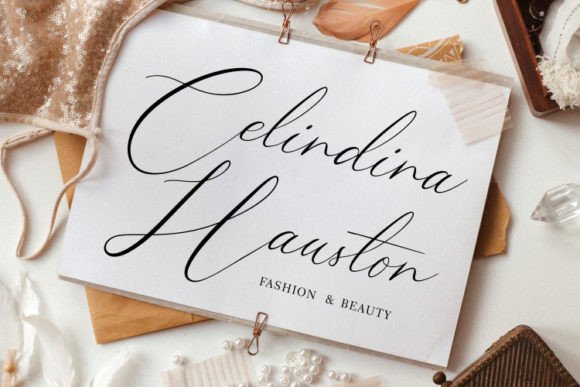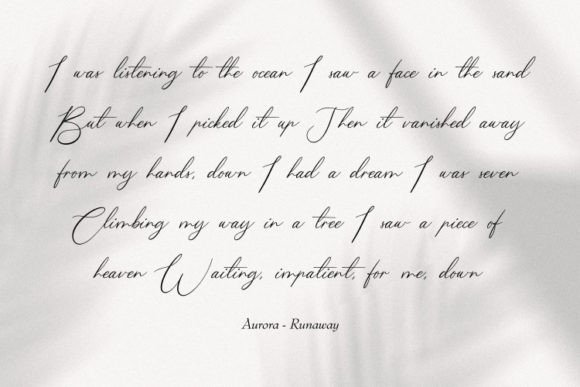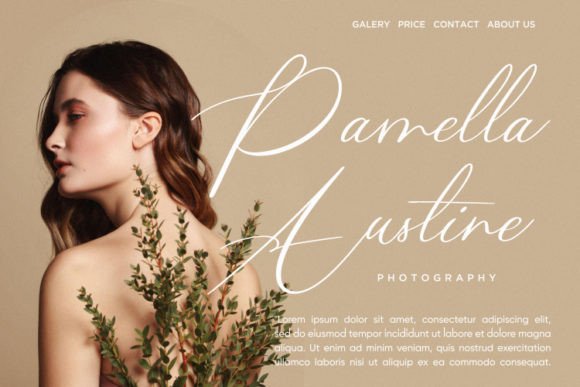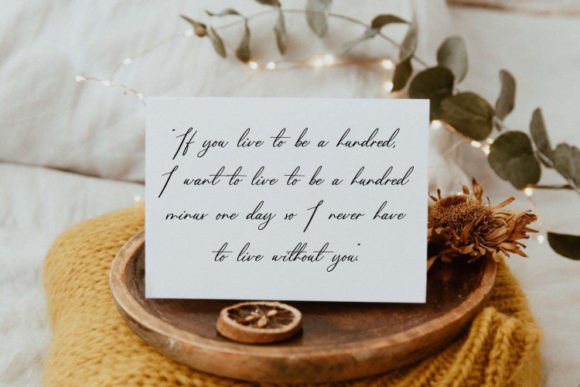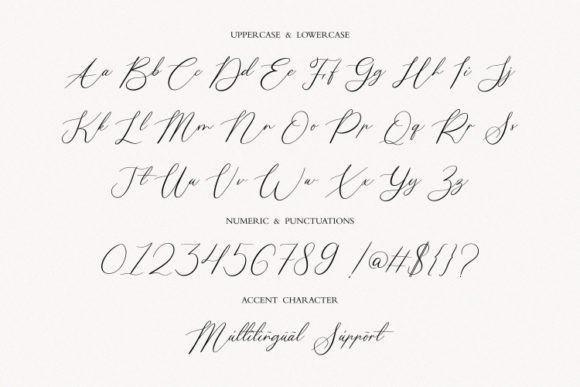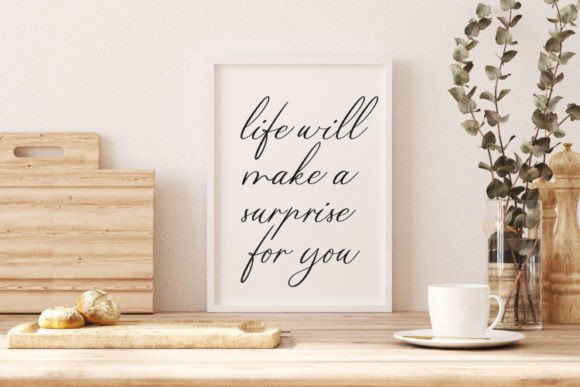
The Magic of Calligrapher Font: Elevating Your Designs with Elegance
I’ll never forget the time I was working on a wedding invitation project, and my client asked for a font that would make the ceremony feel like a fairytale. I scoured the internet, tried countless fonts, but nothing seemed to fit the bill. That was until I stumbled upon Calligrapher Font. With its elegant strokes and whimsical flair, it turned the entire design around, making it feel like a true piece of art. In this article, I’ll share my love for this magical script font and provide you with a comprehensive guide on how to make the most of it.
The Good ✨
• ✅ Elegant and sophisticated: Calligrapher Font is perfect for projects that require a touch of luxury and refinement.
• ✅ Highly versatile: Whether you’re designing for Instagram, creating DIY projects, or working on professional clients, this font adapts seamlessly.
• ✅ Easy to read: Despite its script nature, Calligrapher Font remains clear and legible, even at smaller sizes.
• ✅ OpenType features: The font comes with a range of OpenType features, including glyphs and stylistic alternates, allowing for endless creative possibilities.
The Not-So-Good 🤔
• ⚠️ Limited use in very formal or traditional contexts: While beautiful, Calligrapher Font may not be suitable for projects requiring a more conservative or classic look.
• ⚠️ Can be overwhelming in large blocks of text: As with many script fonts, it’s best used in moderation to avoid overwhelming the reader.
The Story Behind Calligrapher Font
Calligrapher Font was crafted with a deep passion for calligraphy and a desire to make elegant writing accessible to everyone. The designer, inspired by traditional calligraphy and modern script fonts, aimed to create a font that would bring a touch of magic to any project. Through meticulous attention to detail and a love for typography, Calligrapher Font was born.
Q: What makes Calligrapher Font special? A: Calligrapher Font stands out for its elegant strokes, whimsical flair, and versatility, making it perfect for a wide range of creative projects.
Q: Is Calligrapher Font difficult to read? A: No, despite being a script font, Calligrapher Font is designed to be clear and legible, even at smaller sizes.